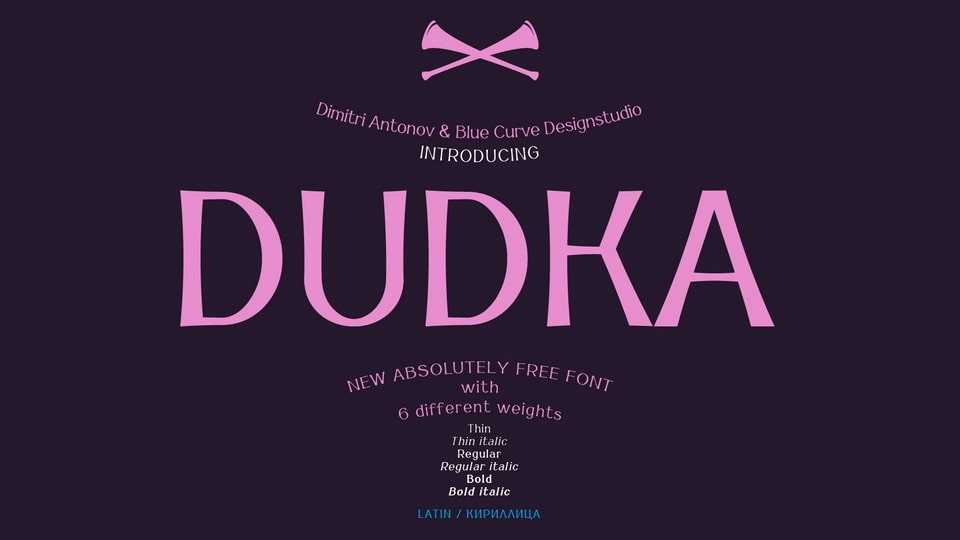
Download Dudka font, an elegant and sophisticated typeface that seamlessly merges the clean lines of a grotesque typeface with the distinctive contrast reminiscent of antique serifs.
Designer: Dimitri Antonov